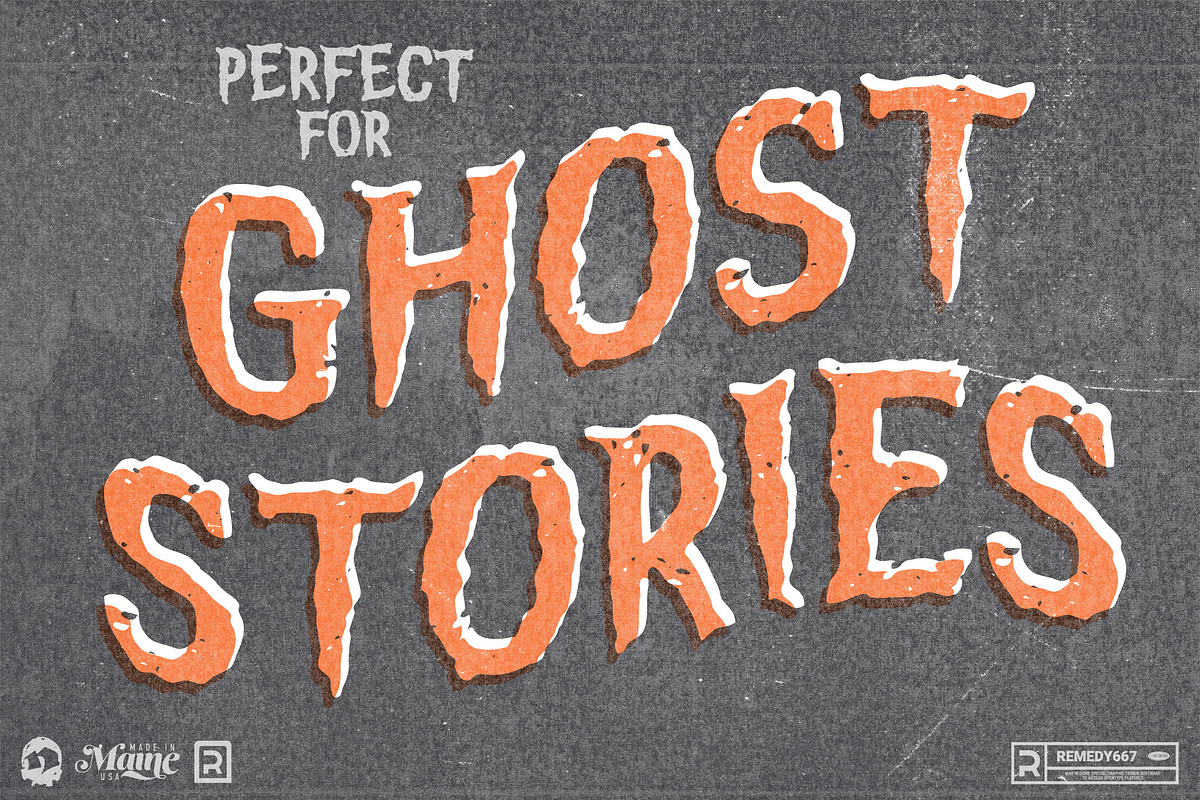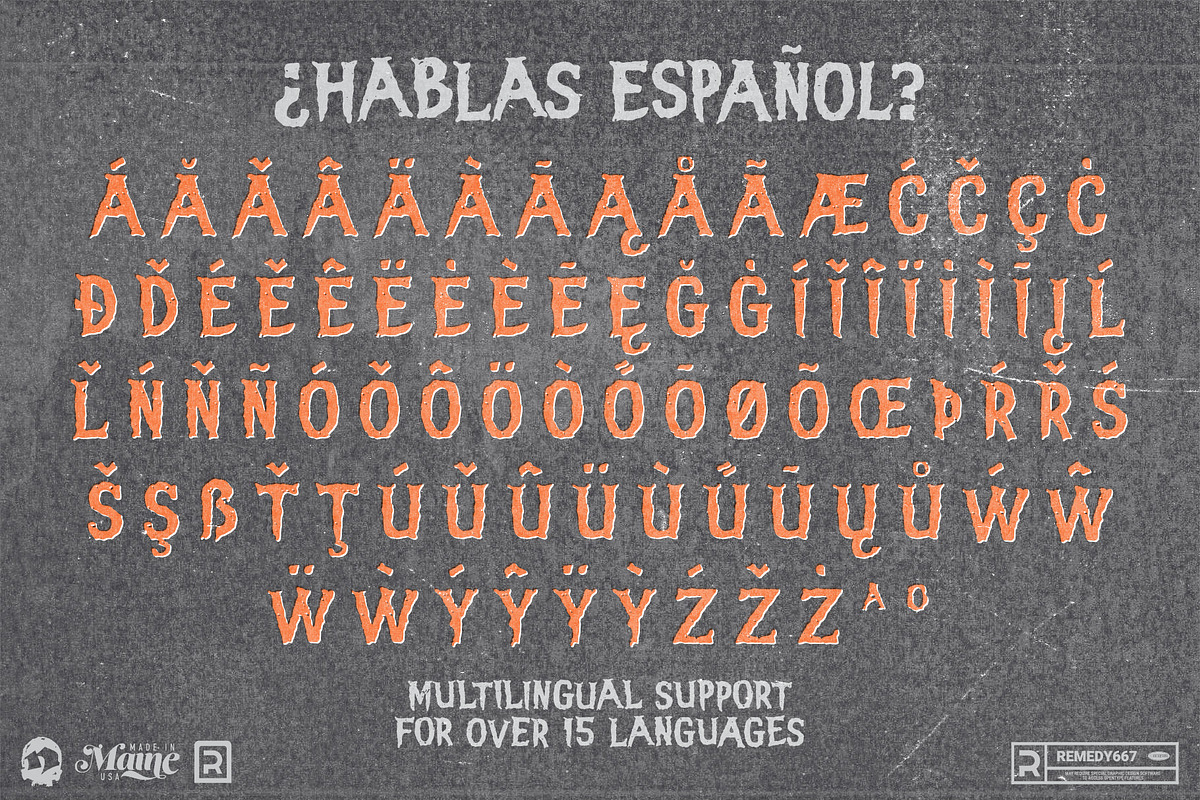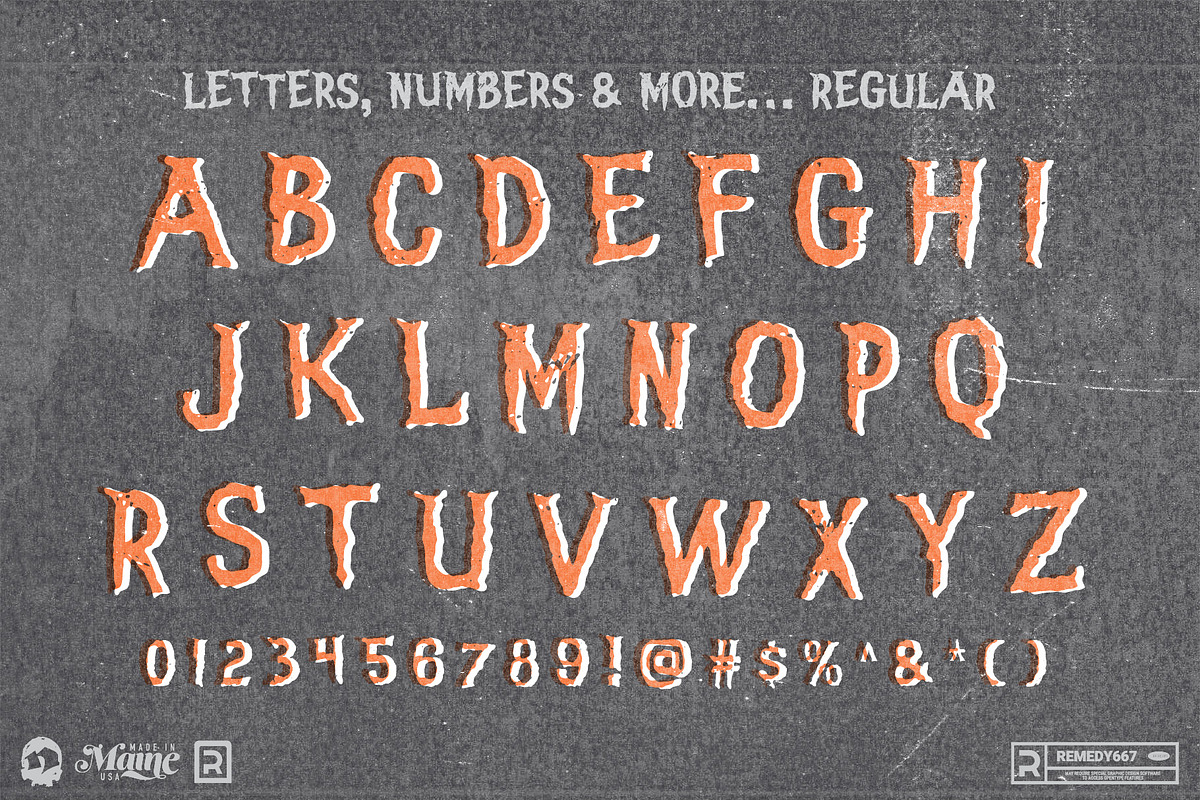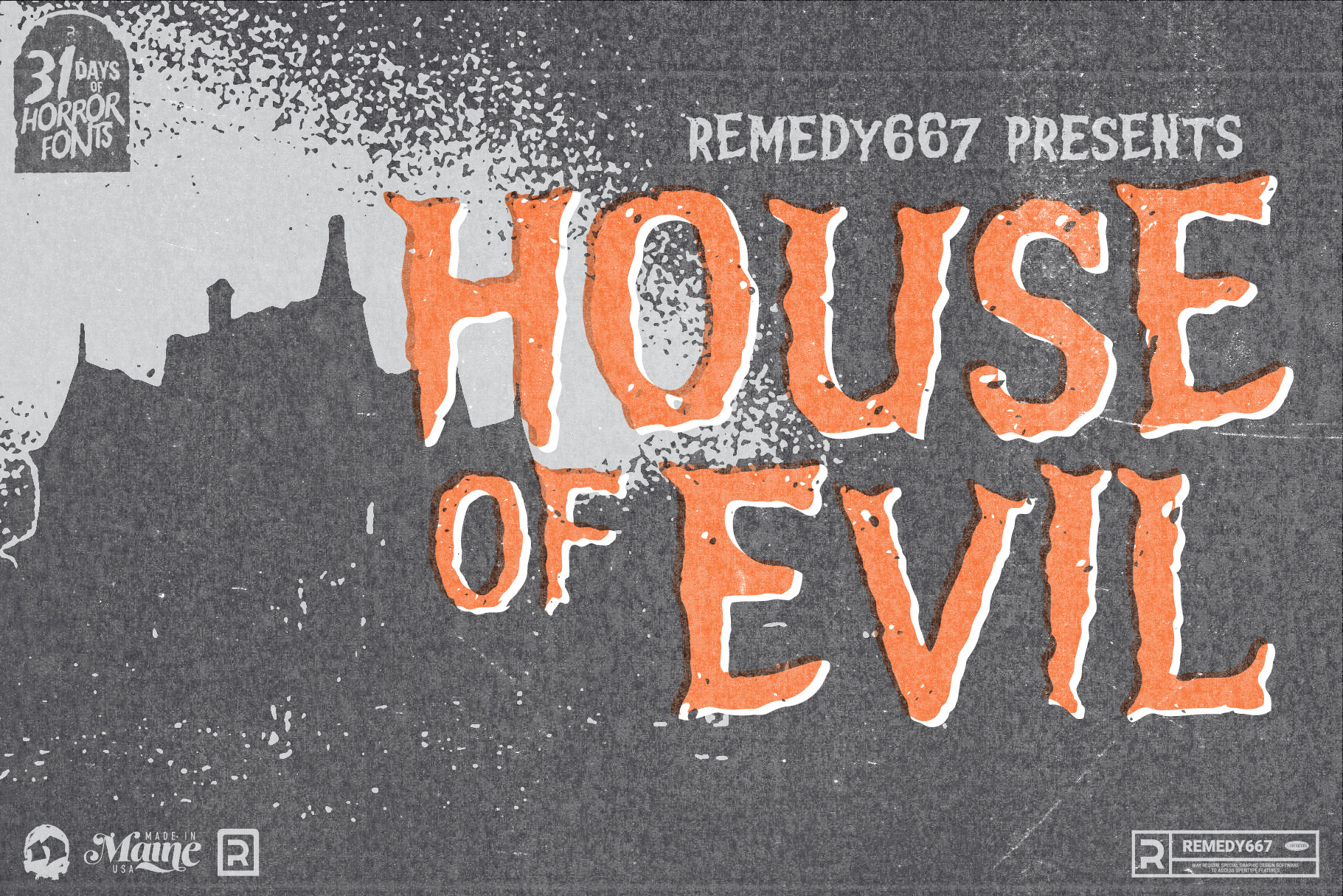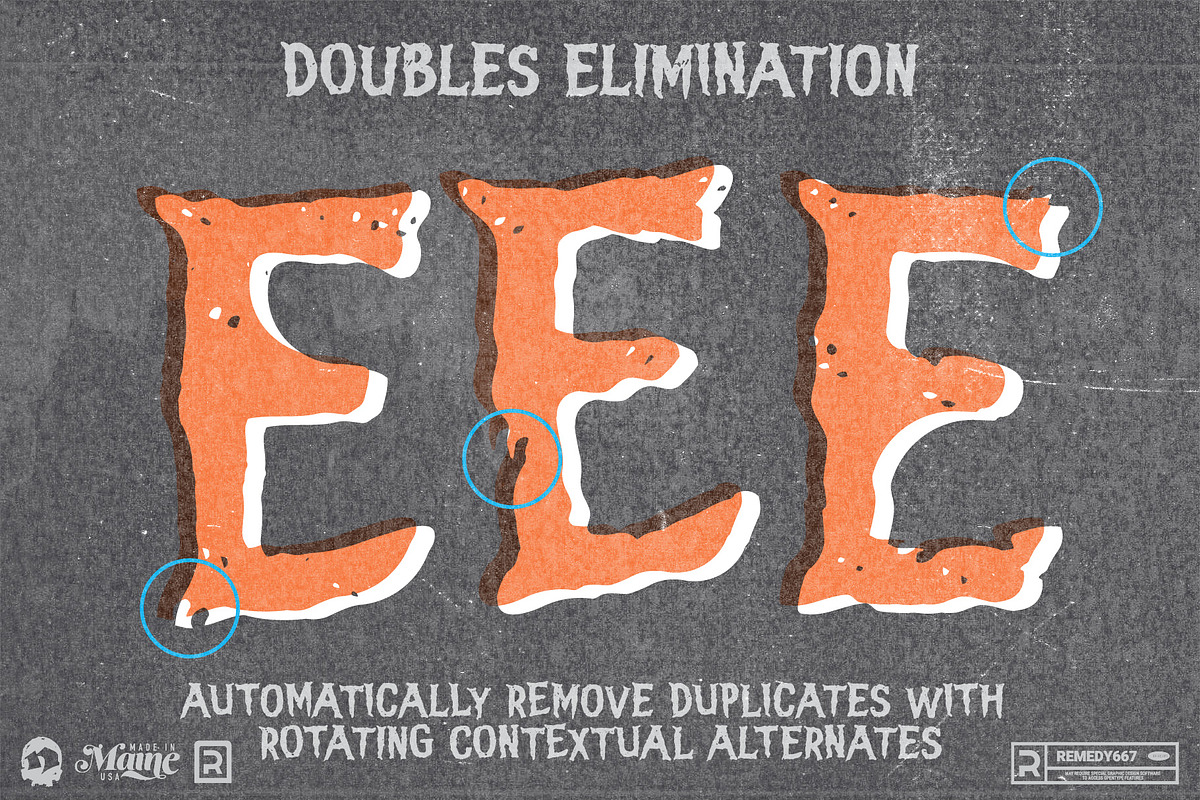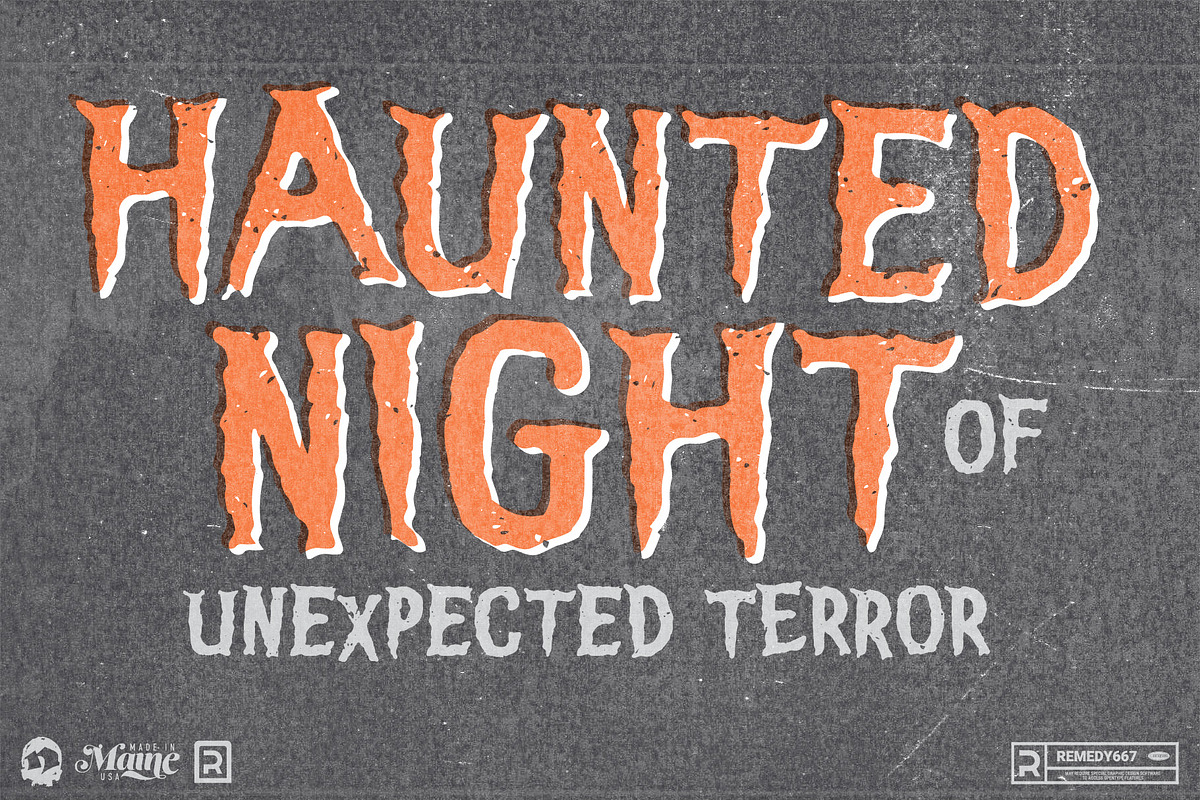
House of Evil - Vintage Horror Font
Every haunted house has a front door… but House of Evil is the kind that invites you in and never lets you leave! Inspired by the eerie hand drawn dust jackets of vintage horror novels and the unsettling typography of 1950s psychological thrillers, House of Evil whispers dread instead of screaming it.
Designed for stories of cursed mansions, restless spirits, and minds slowly unraveling, House of Evil brings a refined yet sinister atmosphere to titles, book covers, posters, and more. Its rotating letters & numbers create a naturally hand drawn feel, making every headline seem as though it was penned by someone slowly losing their sanity. Sometimes the quietest terrors are the deadliest.
Inspired by vintage horror book dust jackets and 1950s psychological horror
Rotating characters for natural feeling typography
Ideal for haunted house stories, thrillers, and gothic mysteries
Multilingual support for worldwide tales of terror